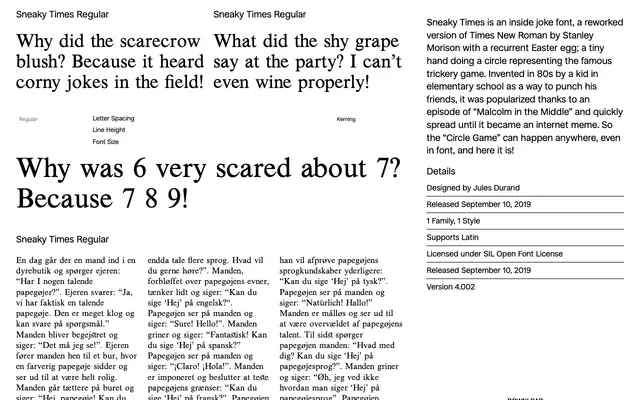
Sneaky Times
A single-weight reworking of Times New Roman by Jules Durand, embedding a hidden hand gesture as a recurring Easter egg throughout the glyph set.
Designed by Jules Durand and released in 2019 under the SIL Open Font License, it takes Times New Roman as its base and inserts a tiny hand performing the "Circle Game" gesture as a concealed motif. The joke originates from a schoolyard prank popularised by the US sitcom Malcolm in the Middle before spreading as an internet meme. With one weight and Latin support only, it is a novelty release rather than a workhorse typeface.
A reworked version of Times New Roman, itself a transitional serif; the modifications are cosmetic and conceptual rather than structural, preserving the underlying transitional serif classification.